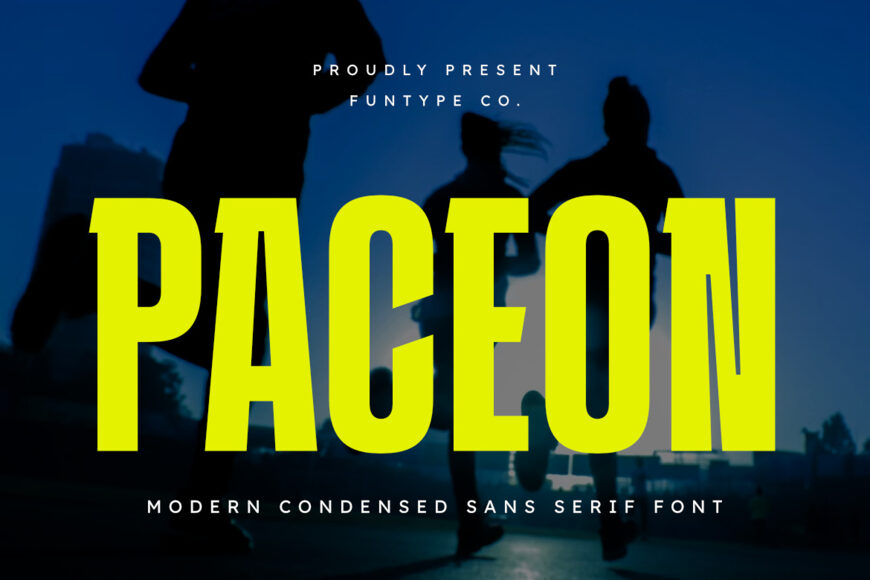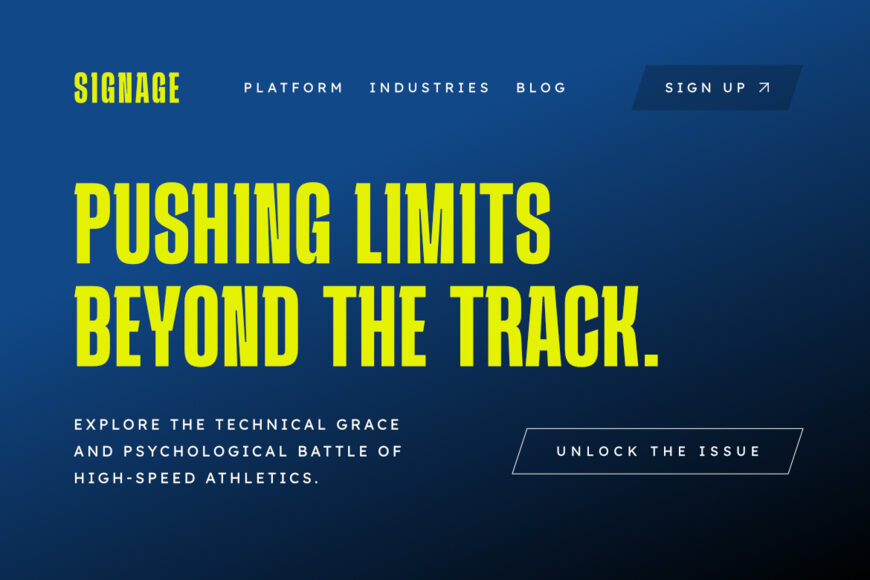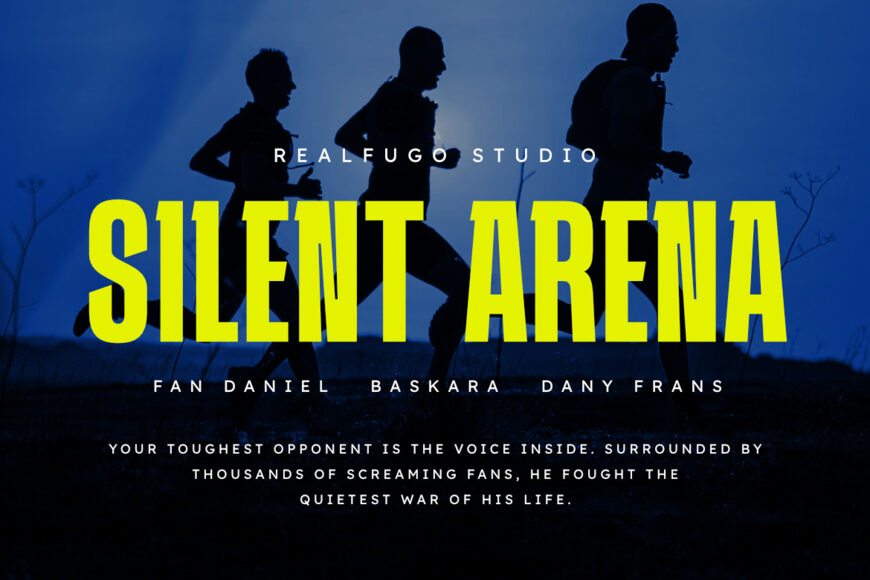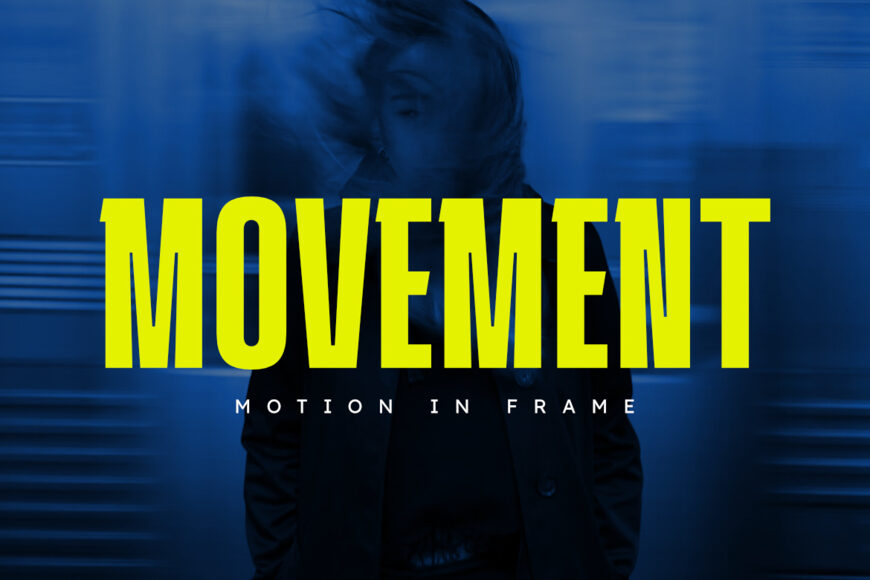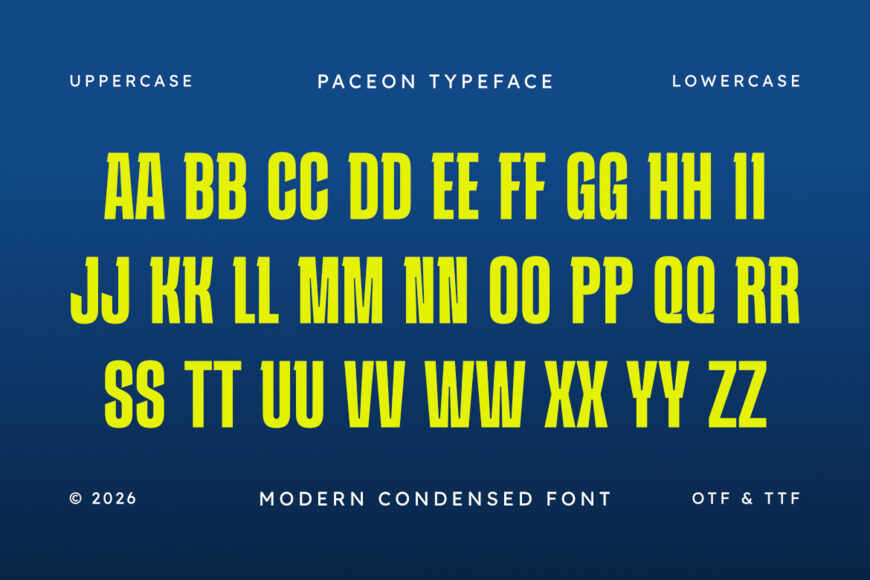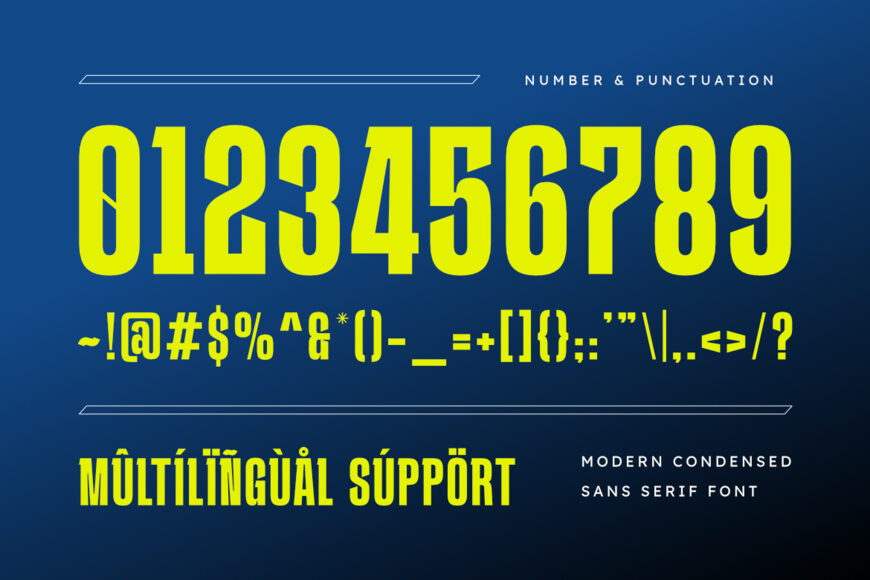
Paceon Font
Paceon is a tall, narrow, and beautifully stylized modern condensed sans serif font tailored for precise, high-impact branding and commercial craft design.
Showcasing a compact geometric block structure, heavy weights, and clean linear silhouettes with aggressive sharp notch accents, this typeface is exceptionally qualified for commanding headlines, high-end urban streetwear clothing lines, athletic sports jerseys, custom vinyl decals, activewear branding, and bold promotional posters.